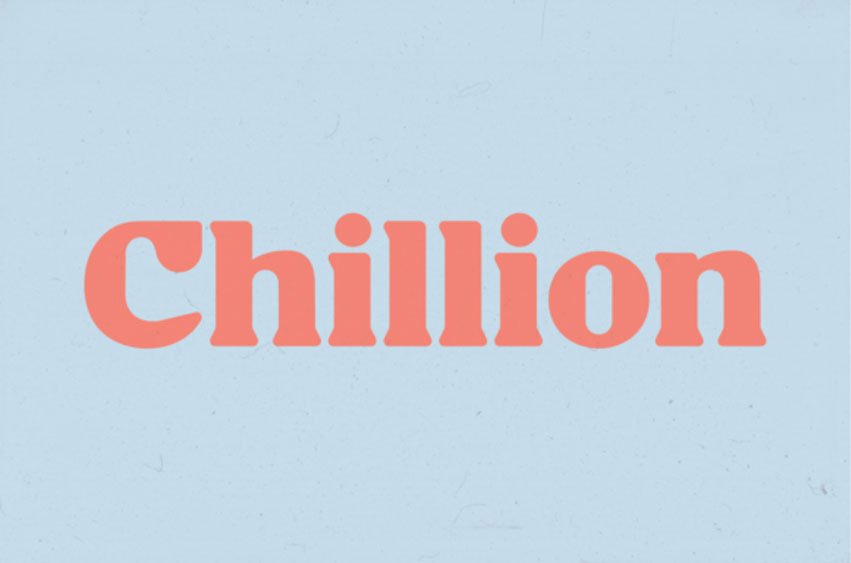
Chillion Font is a cute and unique display font.
This font is suitable for any project, like branding, print template, logo and more.
Chillion Font is a cute and unique display font.
This font is suitable for any project, like branding, print template, logo and more.